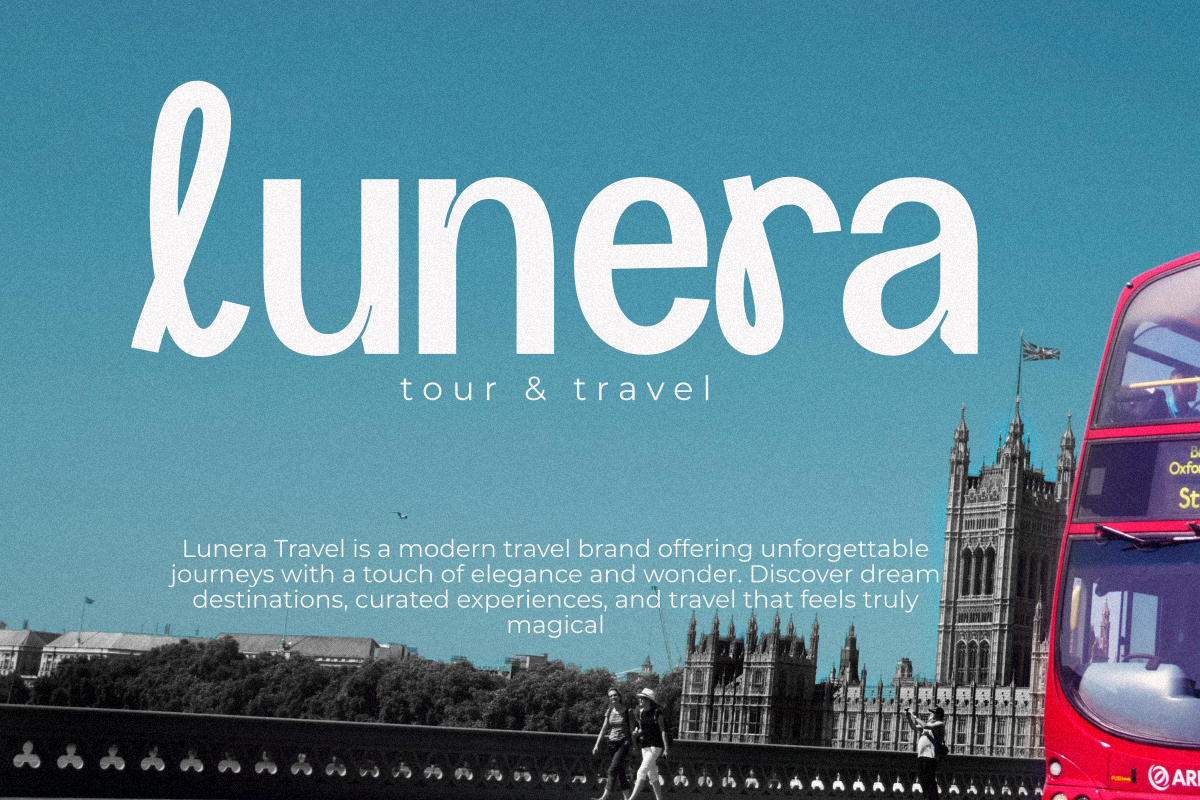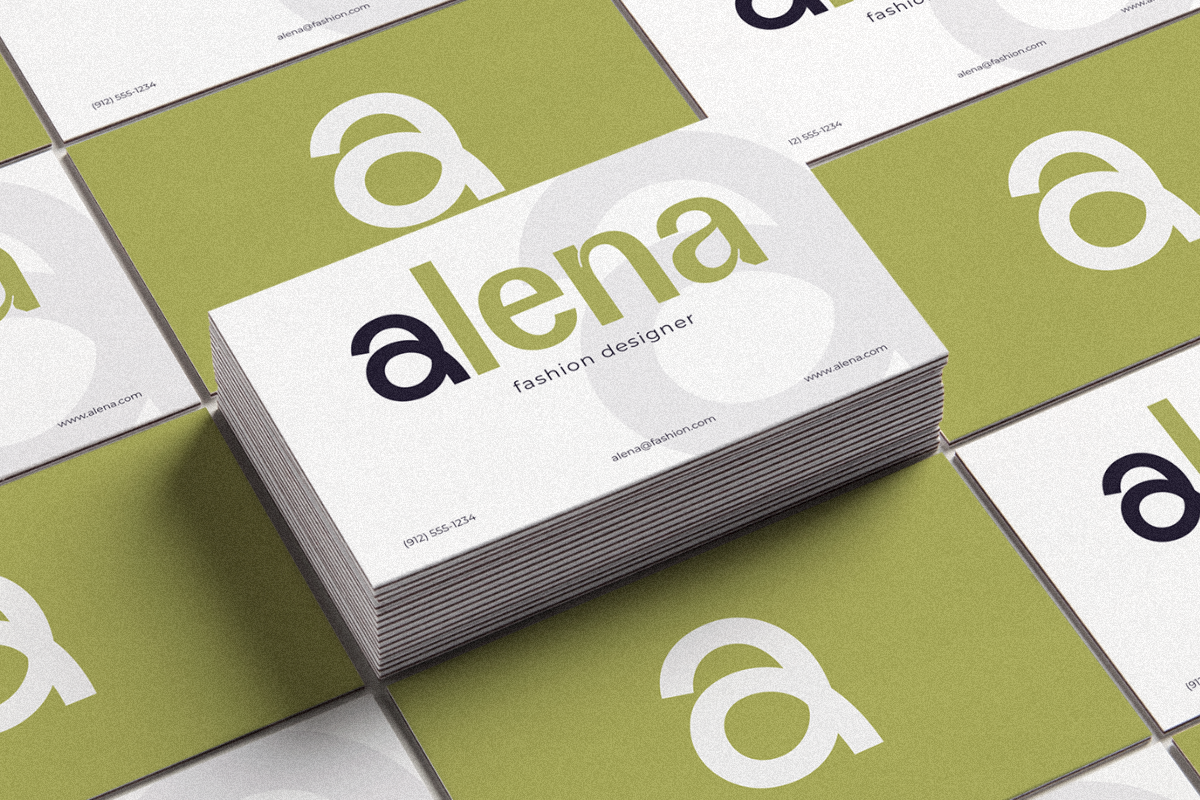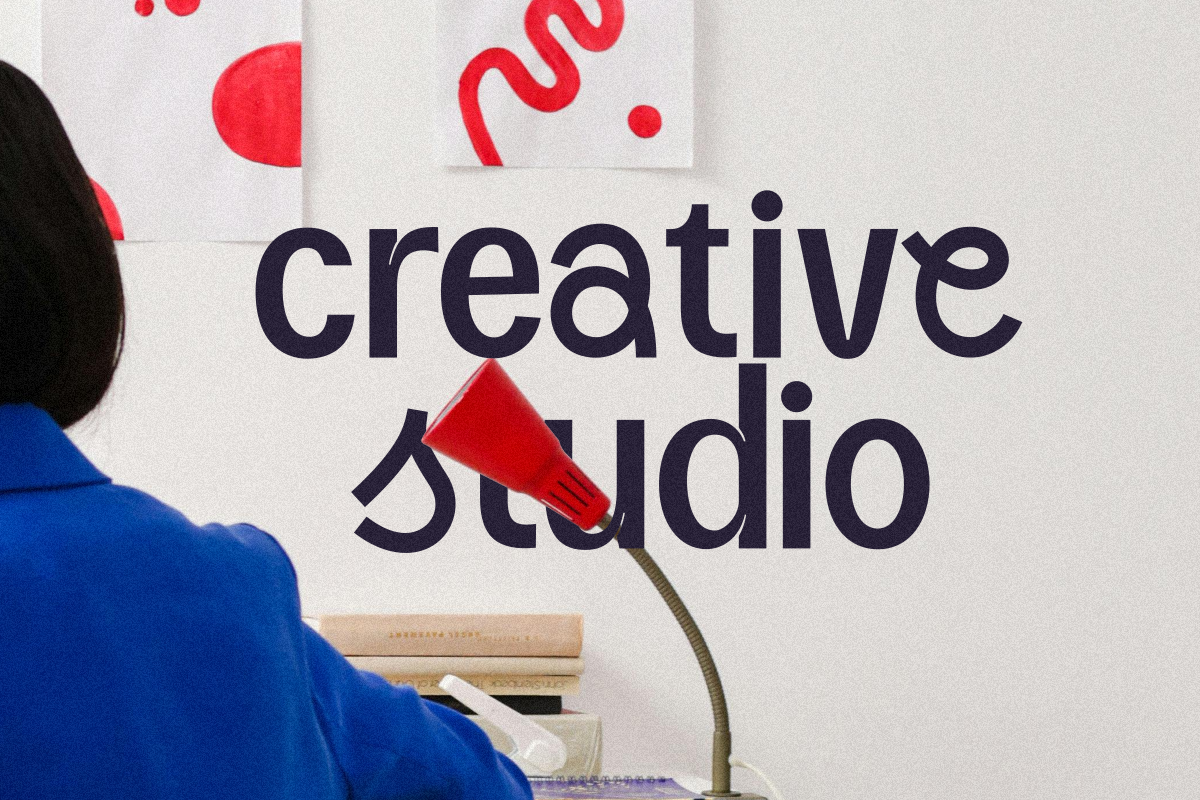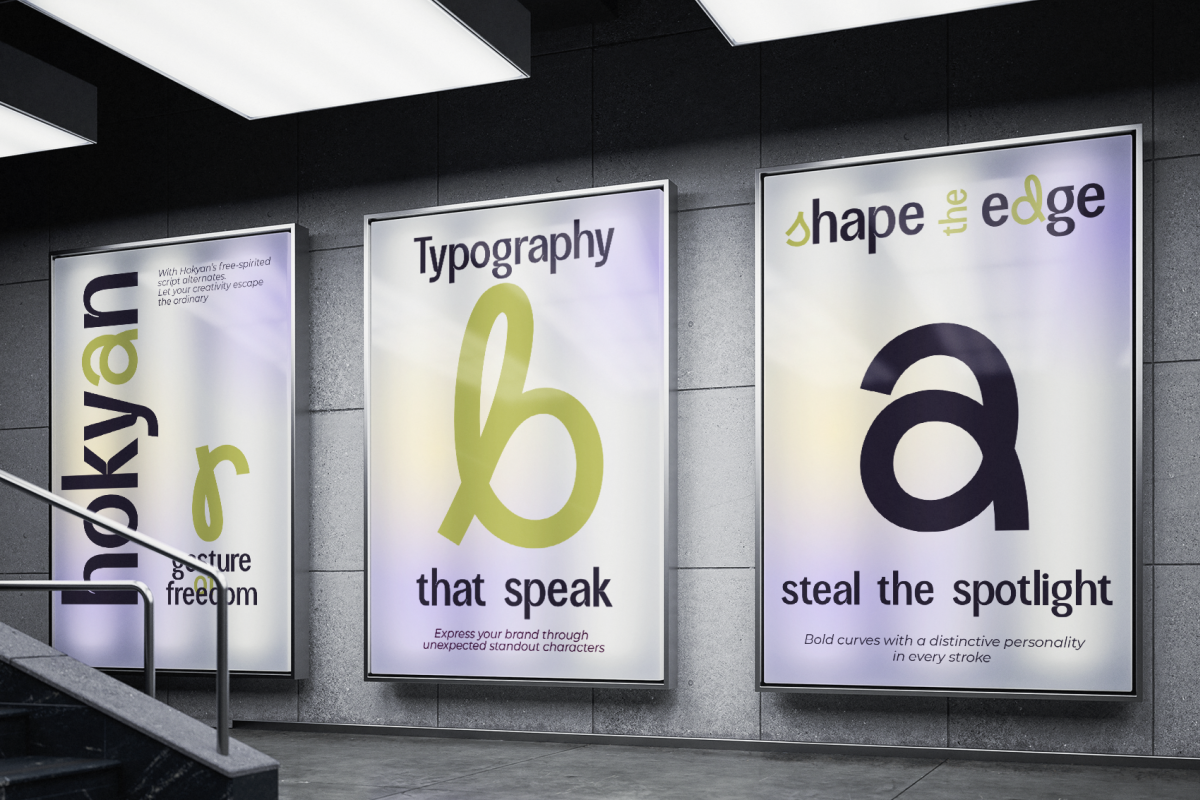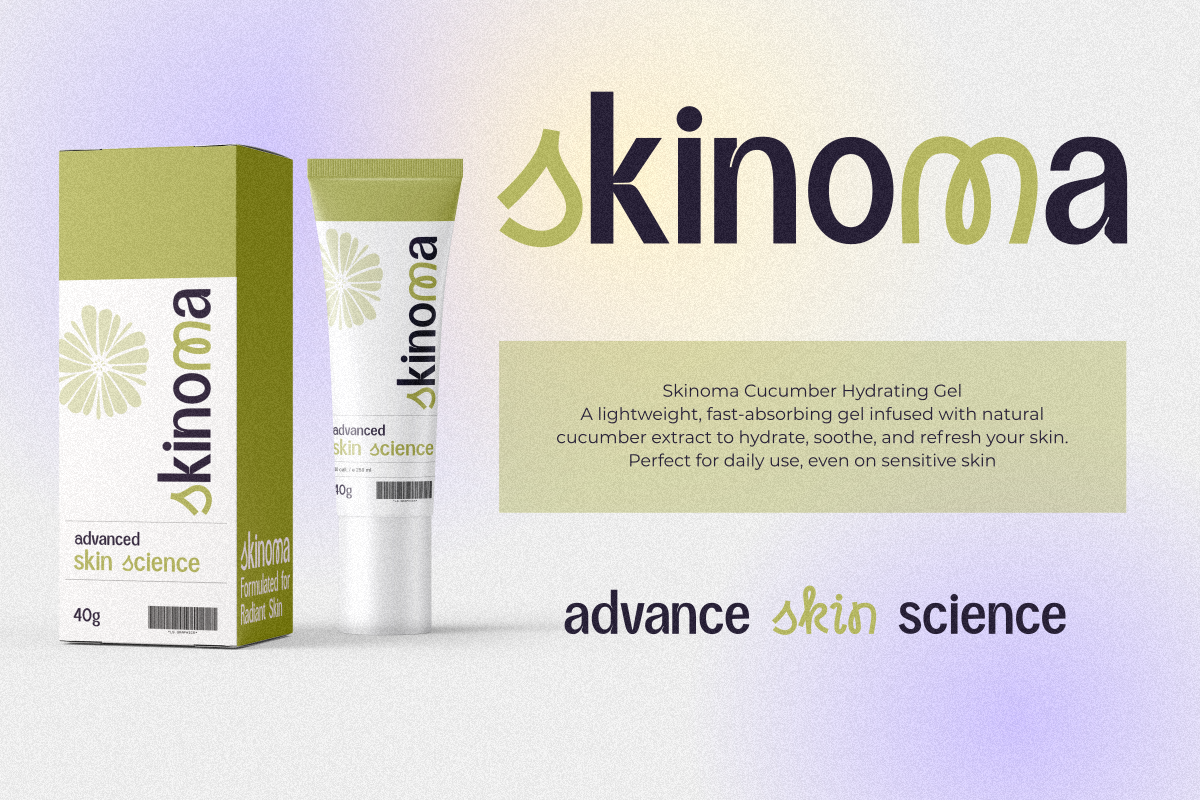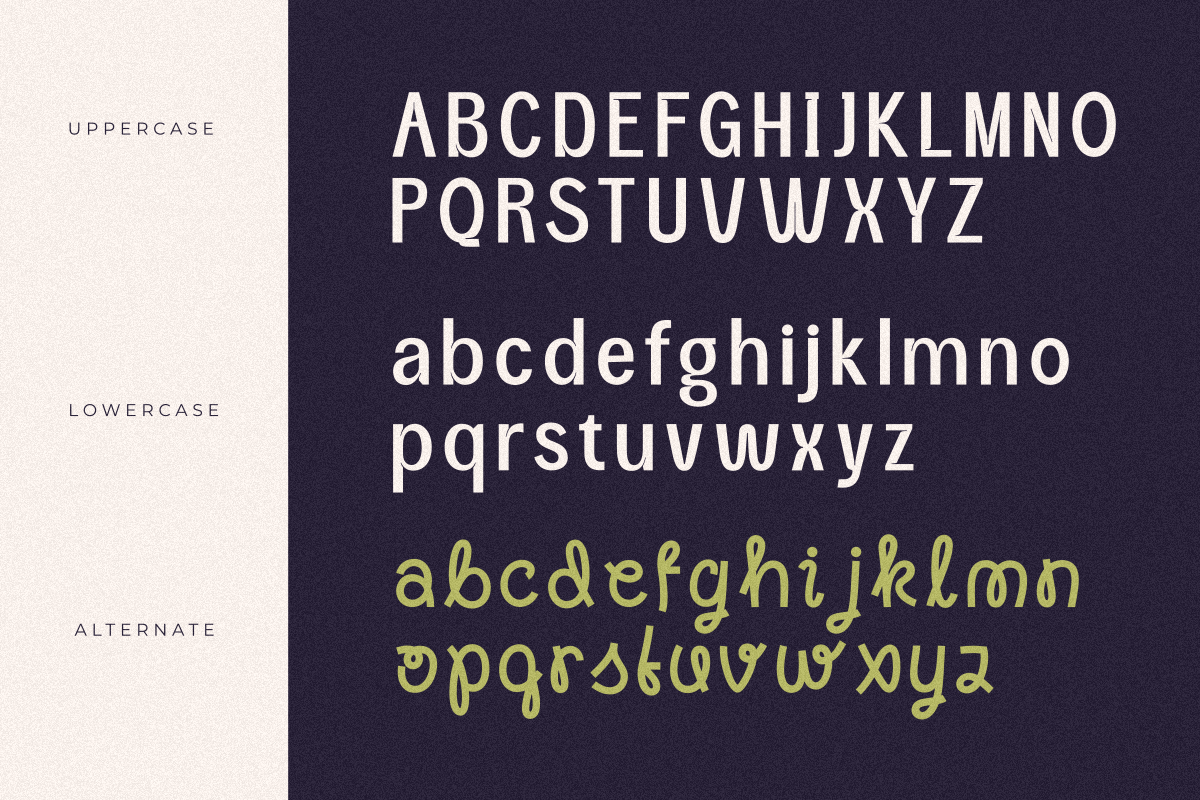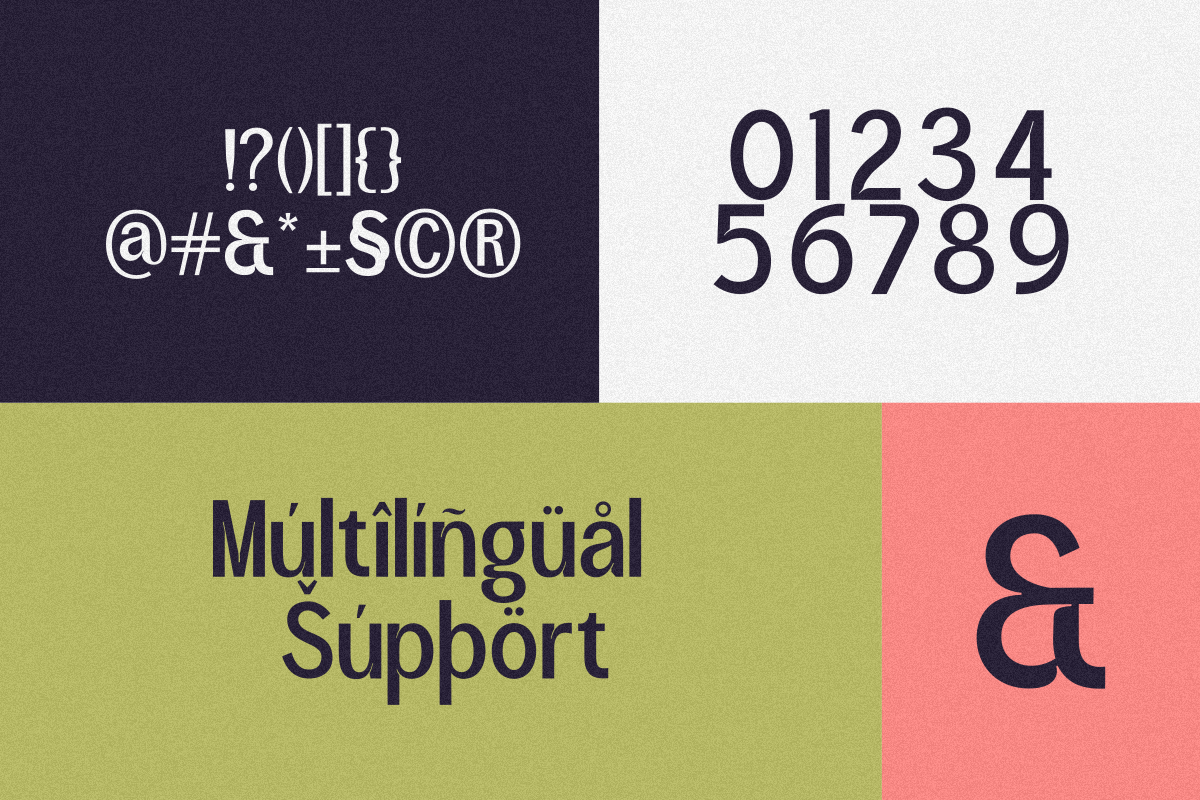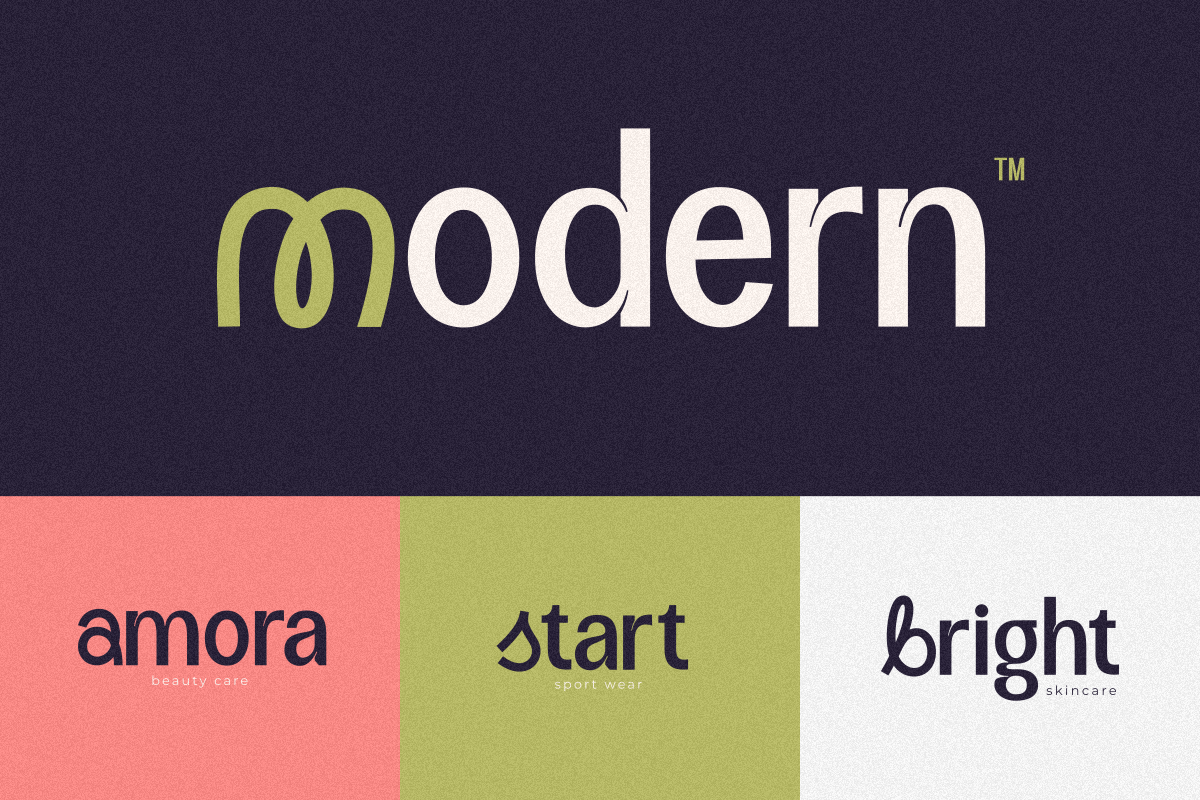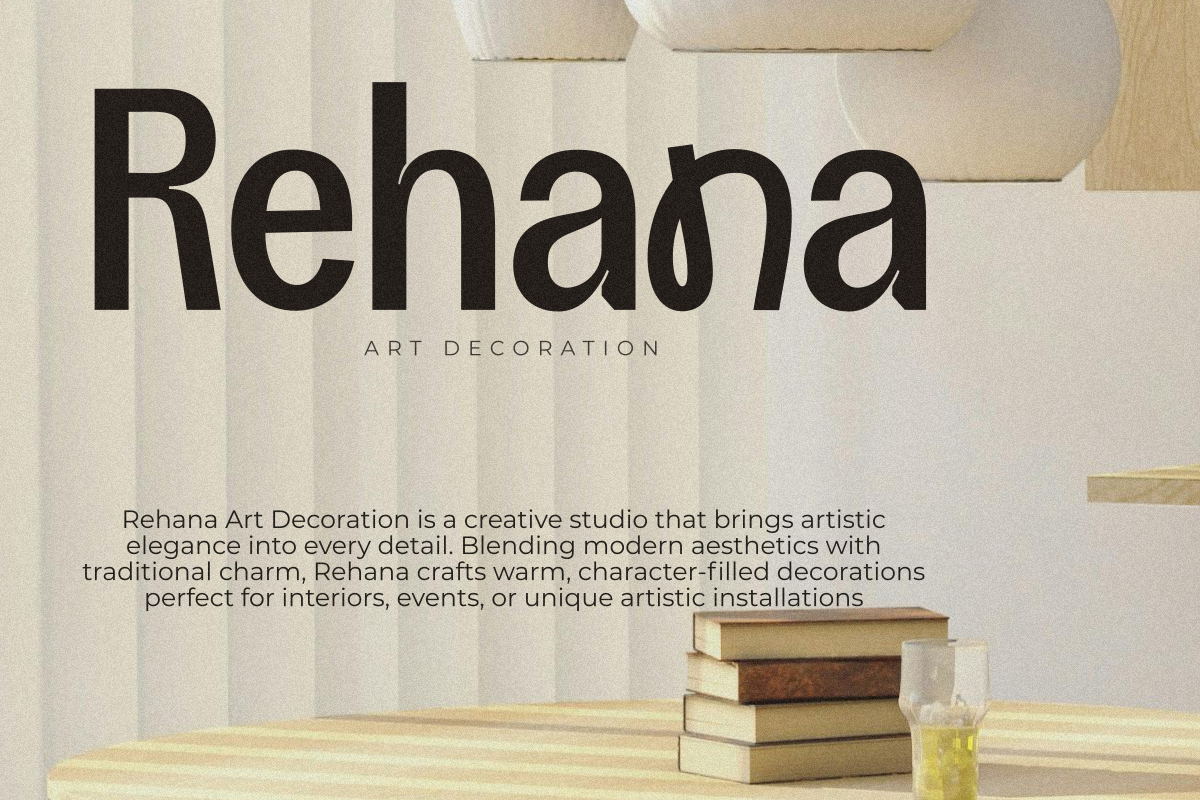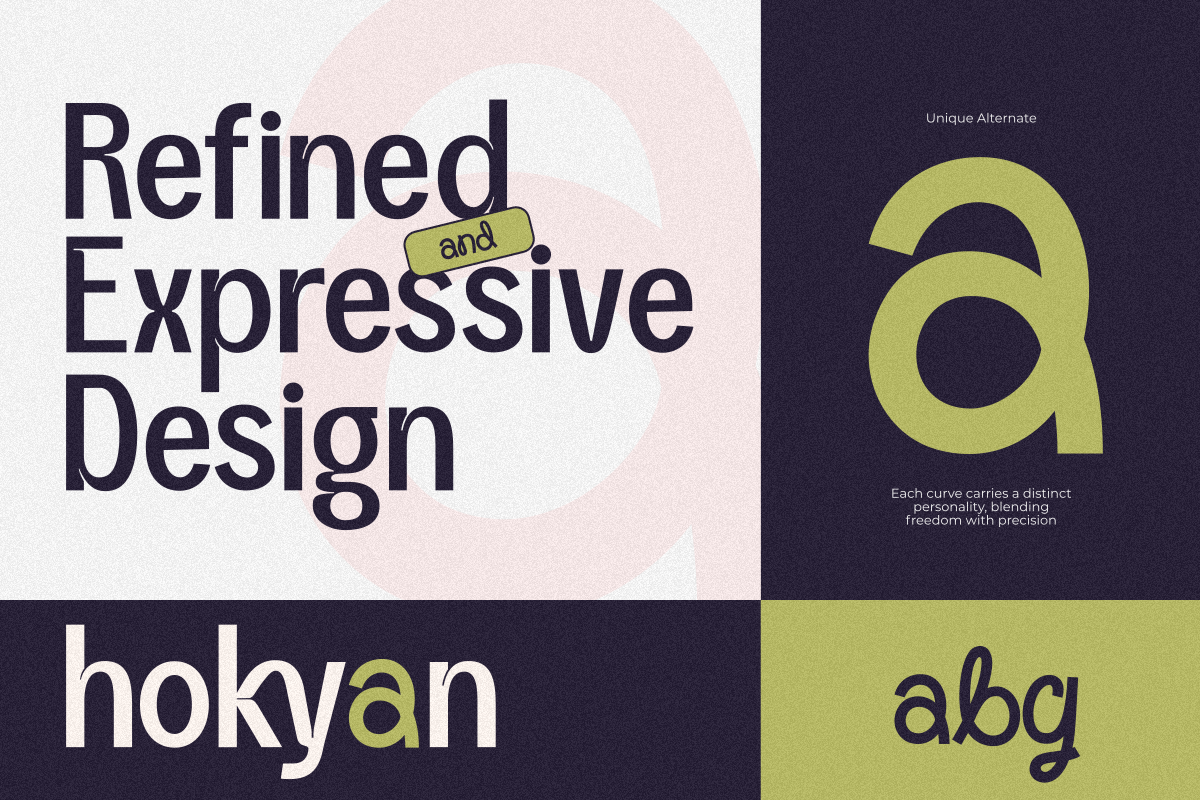
Hokyan
Meet Hokyan – A Playful Yet Elegant Modern Sans
Hokyan is a clean and expressive display sans that blends modern aesthetics with surprising script-style alternates. Designed to elevate your branding, editorial, and creative projects, Hokyan adds just the right amount of character and charm—without going over the top.
Its unique personality shines through in the subtle curves and alternate glyphs, making it ideal for logos, packaging, posters, and headlines that need a fresh, confident voice. With multilingual support, extensive punctuation, and smooth letterforms, Hokyan is ready to bring your ideas to life—beautifully.
Whether you're crafting a bold identity or a playful campaign, Hokyan is the typeface that dares to break the rules just enough.